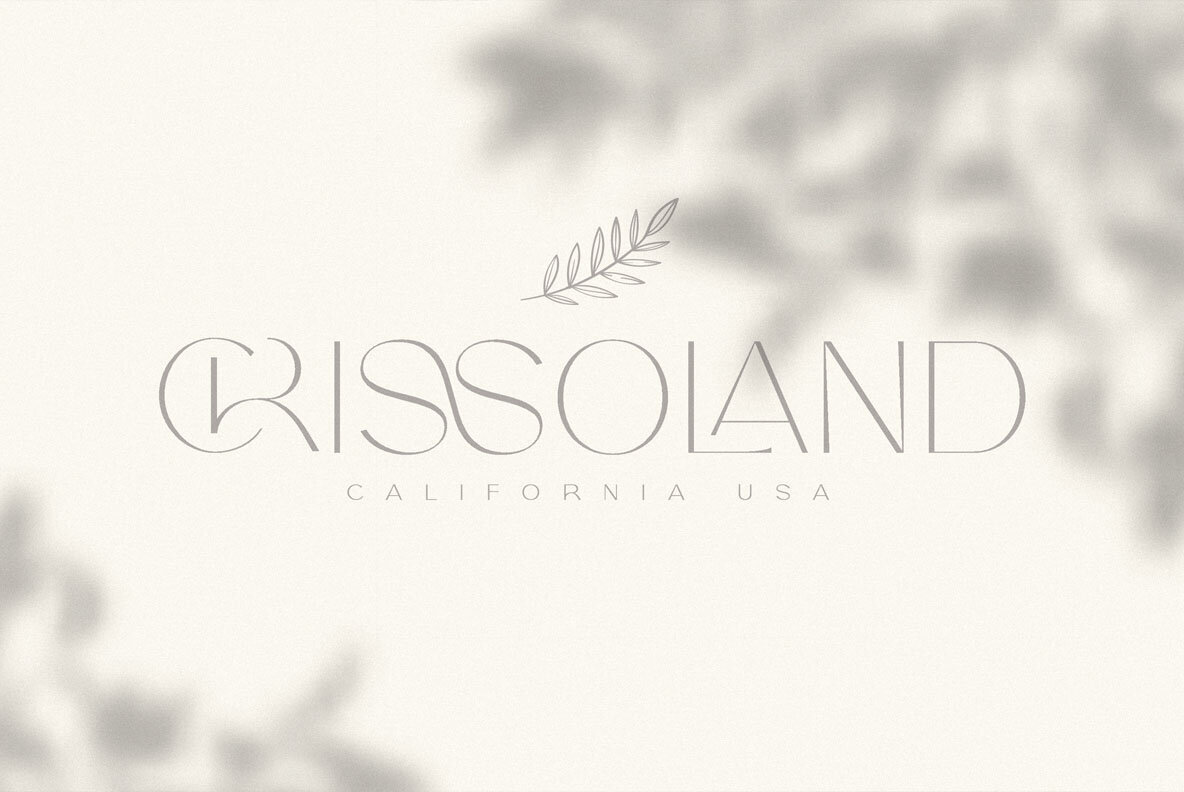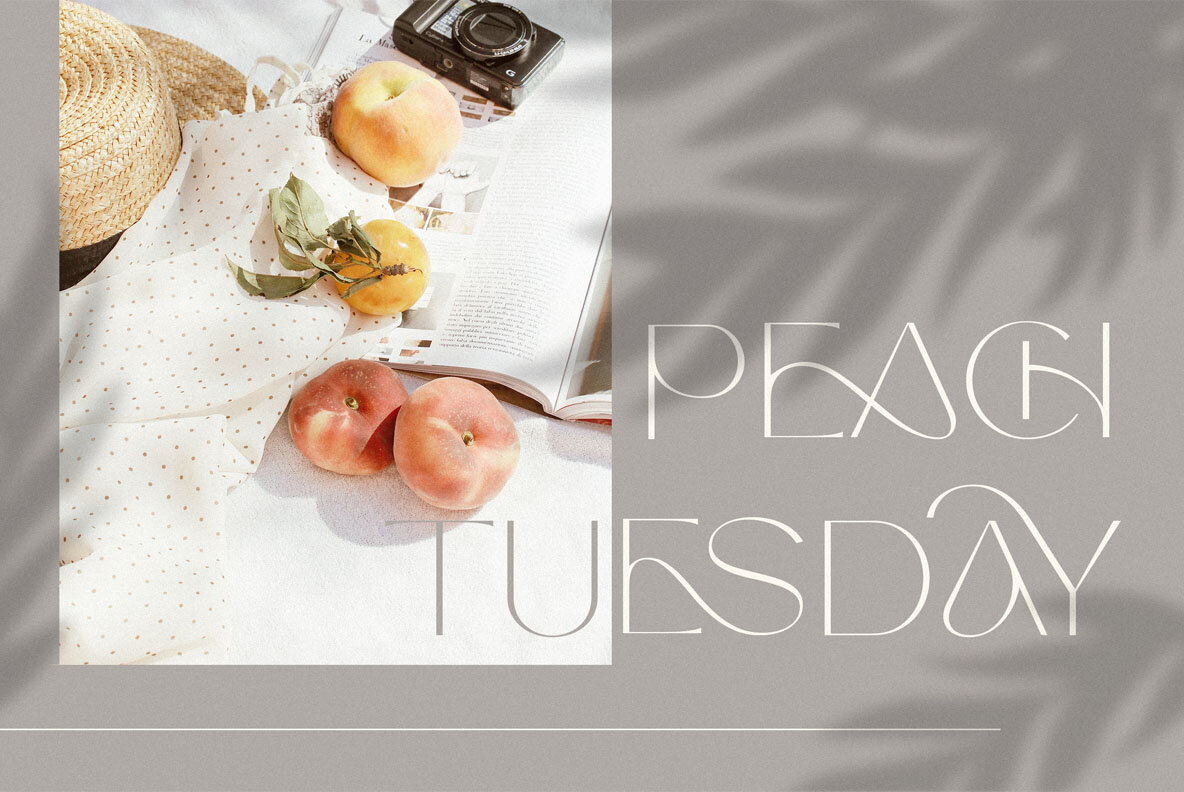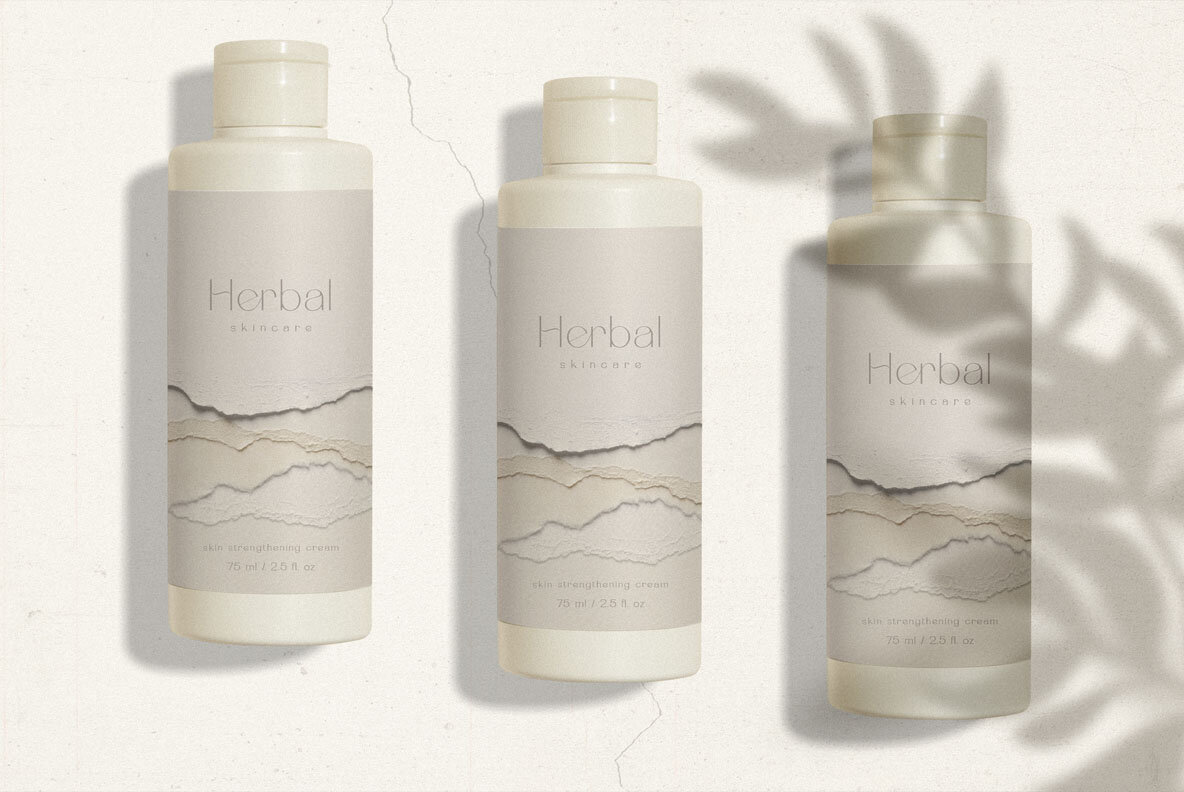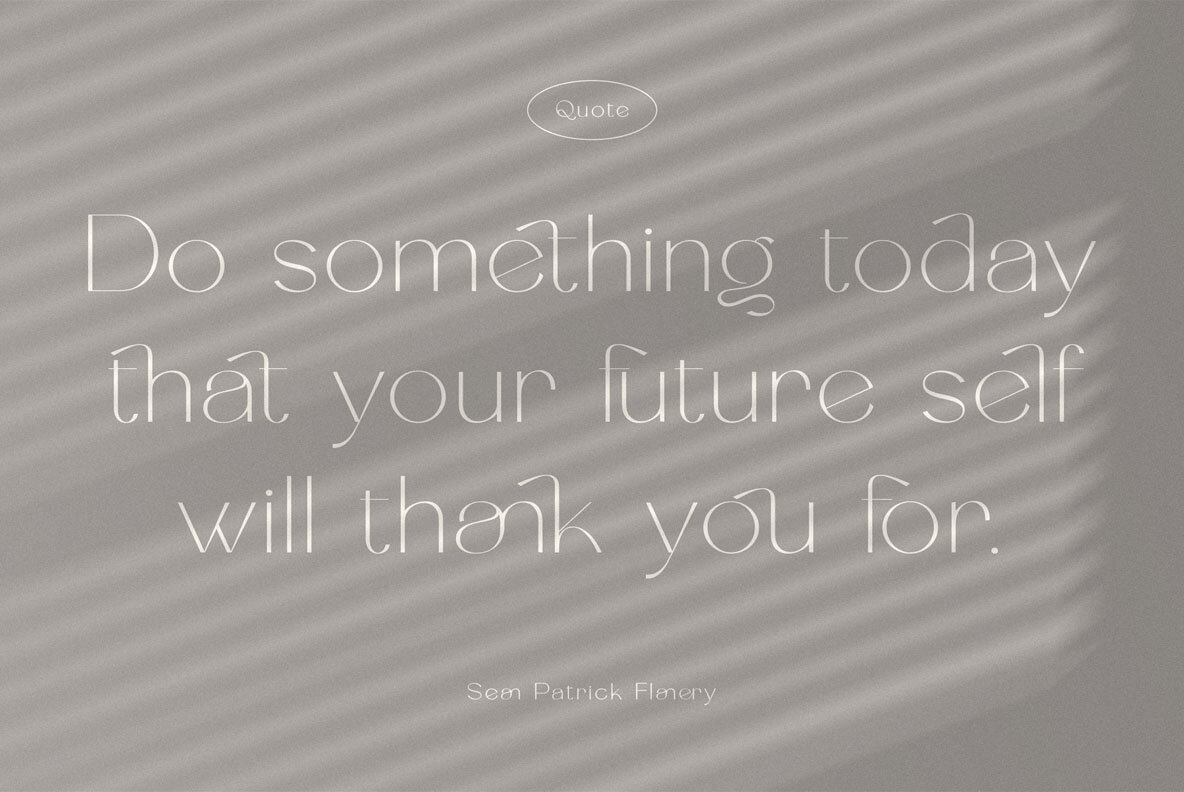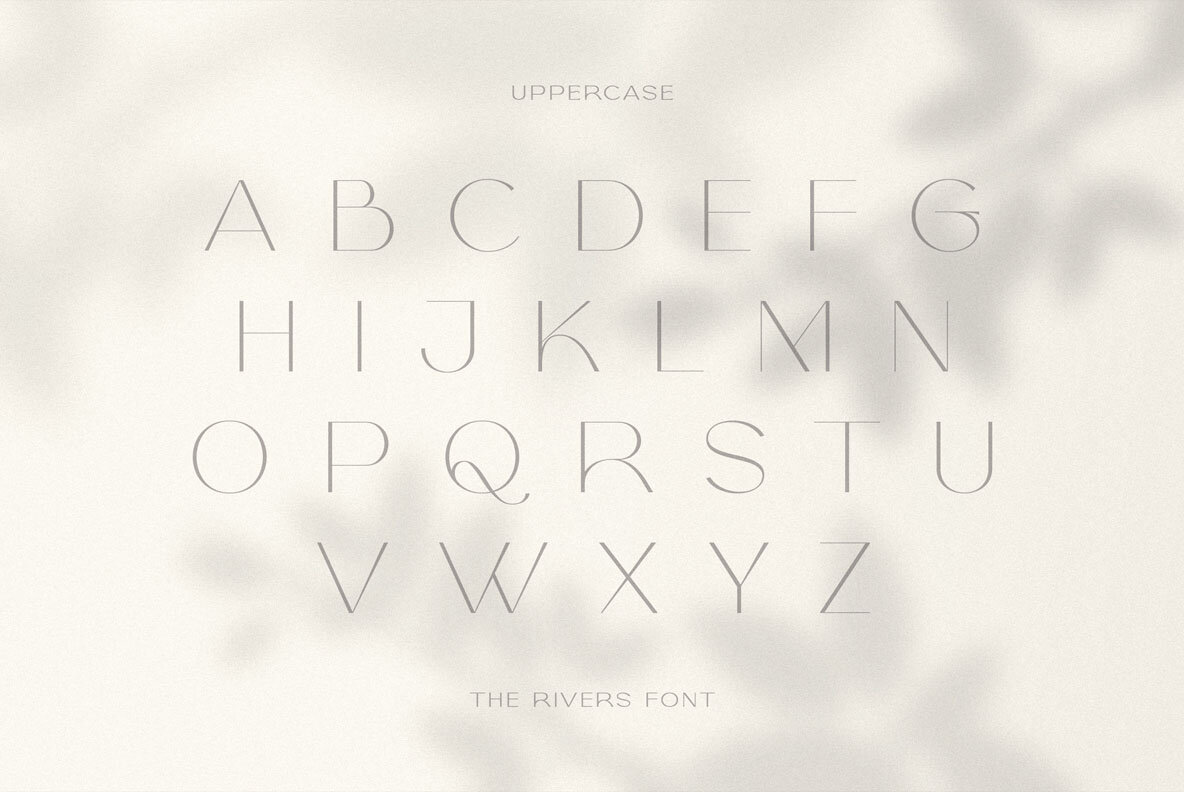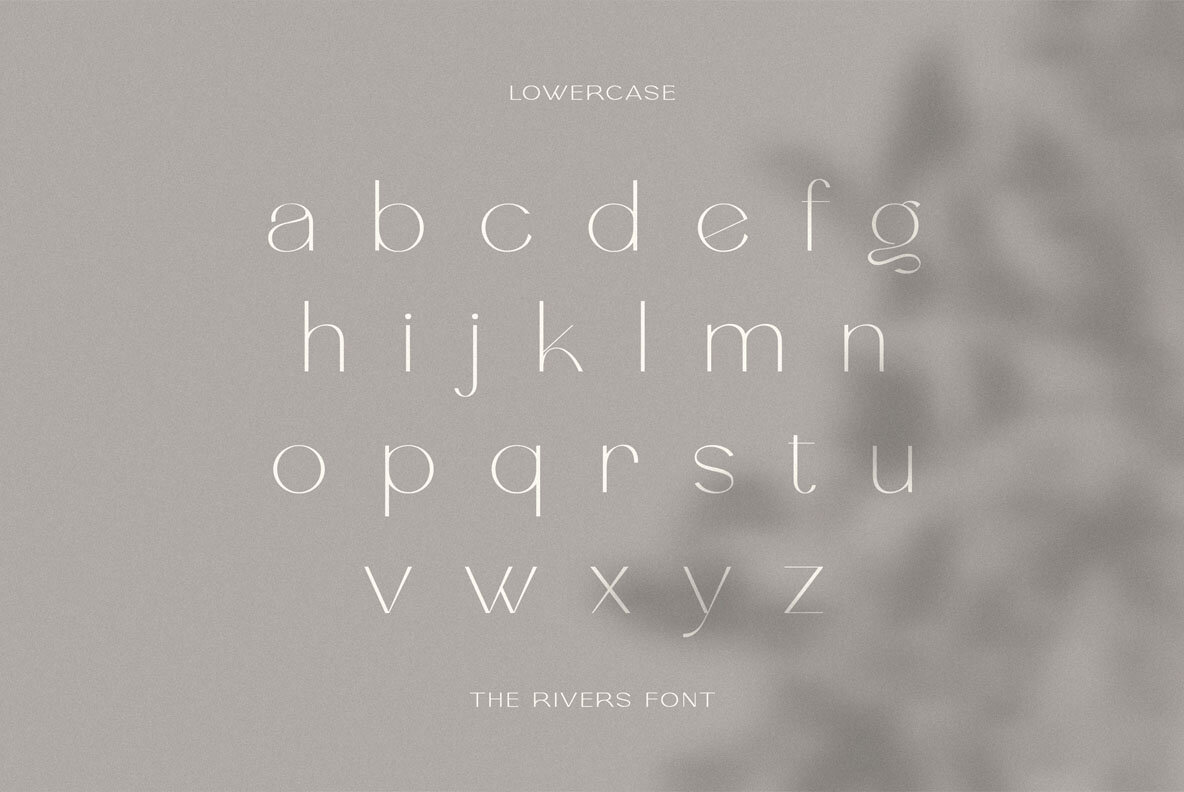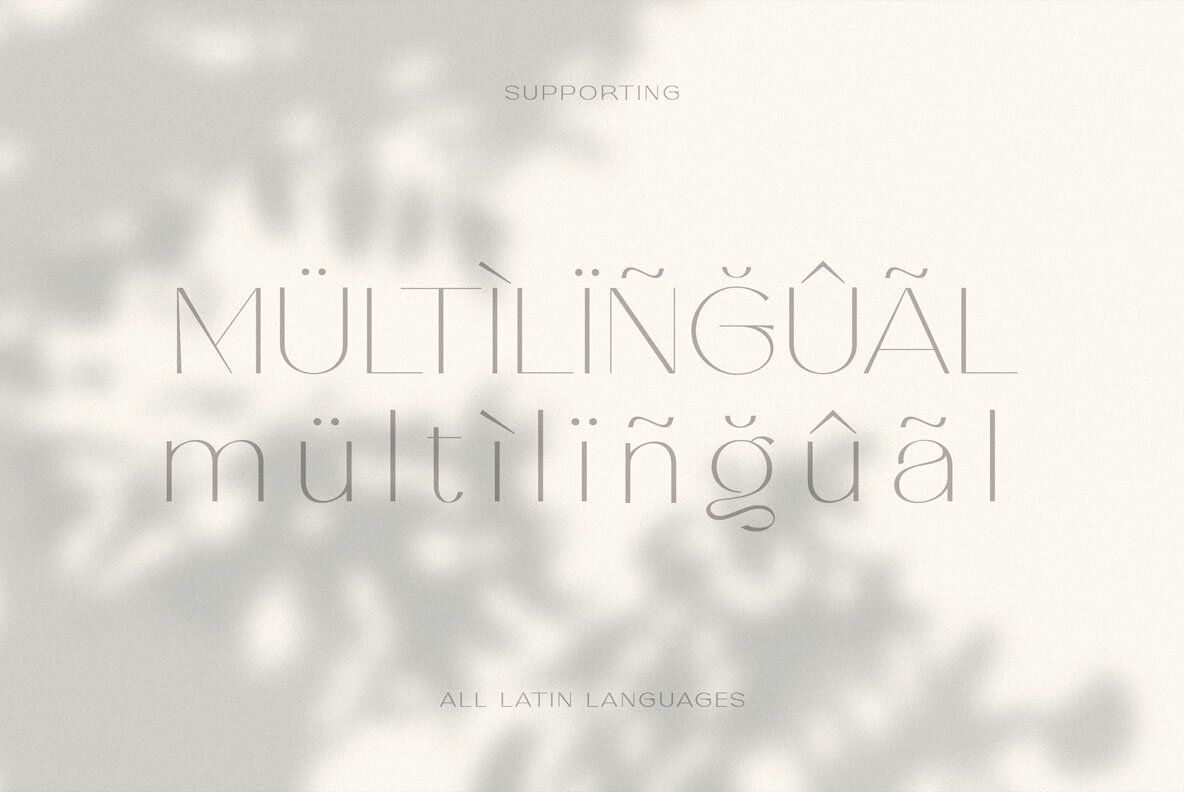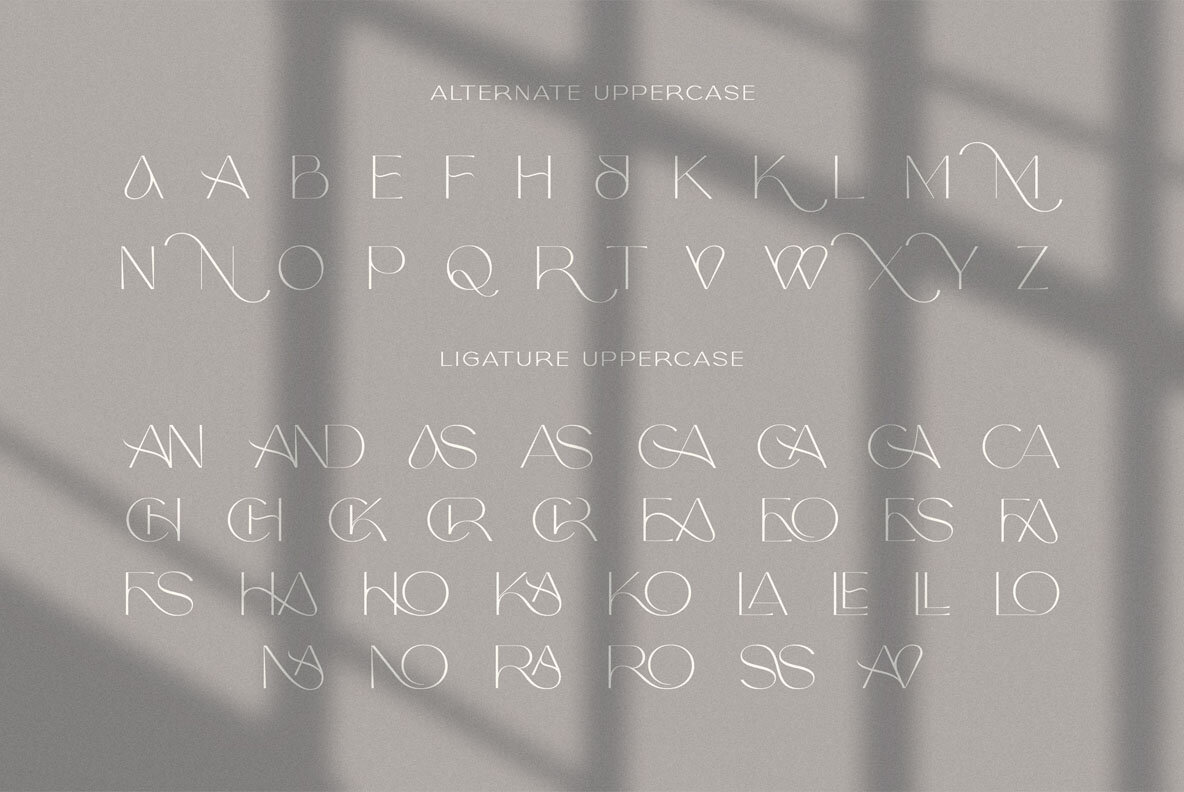
The Rivers Font
The Rivers font by Peter Olexa is a trendy sans serif typeface perfectly suited for contemporary design projects. With its thin, elegant strokes, it adds a touch of sophistication and fashion to any branding initiative. Whether you're crafting a unique logo or designing a striking website header, The Rivers font offers a range of features to help your projects stand out.The Rivers: Modern Sans Serif with Style and Elegance